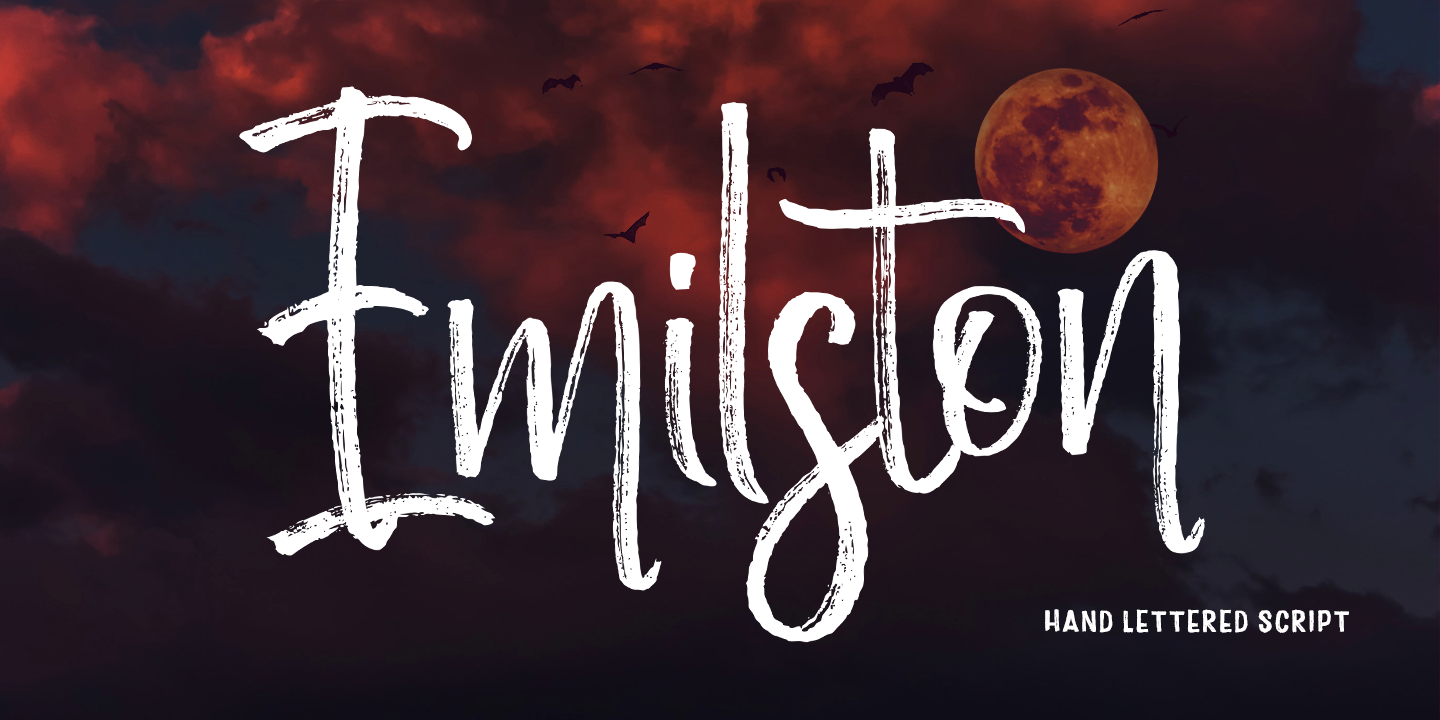
The Emilston Font excels in various design applications including distinguished professional services branding, classic corporate identity materials, timeless law firm communications, established financial institution signage, refined consulting company marketing, traditional business correspondence, prestigious academic publications, elegant estate planning documents, sophisticated professional networking materials, and distinguished corporate projects that demand classic reliability and professional sophistication.
What makes the Emilston Font exciting is its distinguished embodiment of professional excellence and timeless business elegance through letterforms that capture the essence of established authority and the refined sophistication of prestigious professional services. This typeface demonstrates exceptional credibility through carefully crafted characters that suggest the steady reliability of long-standing institutions, the measured wisdom of experienced professionals, and the enduring quality that defines truly prestigious business communications. The font's professional personality makes it perfect for established firms and professional organizations seeking to communicate institutional authority, timeless reliability, and the kind of distinguished professionalism that builds lasting client confidence through typography that literally embodies established excellence.
The Emilston Font family typically includes authoritative weight variations that enhance the professional aesthetic, featuring classic proportions and extended character sets optimized for business communications and institutional applications. These family options often include professional alternates with enhanced formal characteristics, business symbols, and distinguished decorative elements that provide designers with comprehensive tools for creating authentically professional typography that celebrates institutional excellence while maintaining contemporary design appeal and corporate credibility.
Professional service providers and established institutions consistently select Emilston Font Free Download for projects requiring typography that communicates professional authority and institutional excellence. This typeface delivers exceptional performance in corporate marketing, professional branding, and institutional communications where establishing credibility and demonstrating professional competence is essential for client trust. The font's distinguished character makes it particularly effective for legal and financial applications. Download Emilston Font Free Download today to access this authoritative typeface that transforms professional communications with its institutional elegance and distinguished sophistication, creating compelling business experiences that honor the highest standards of professional excellence while maintaining the timeless reliability that defines truly prestigious institutional service and corporate authority.